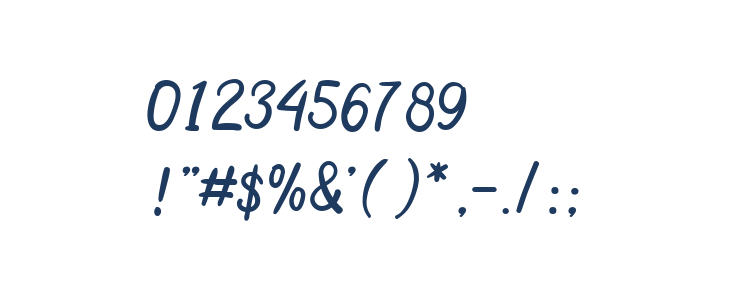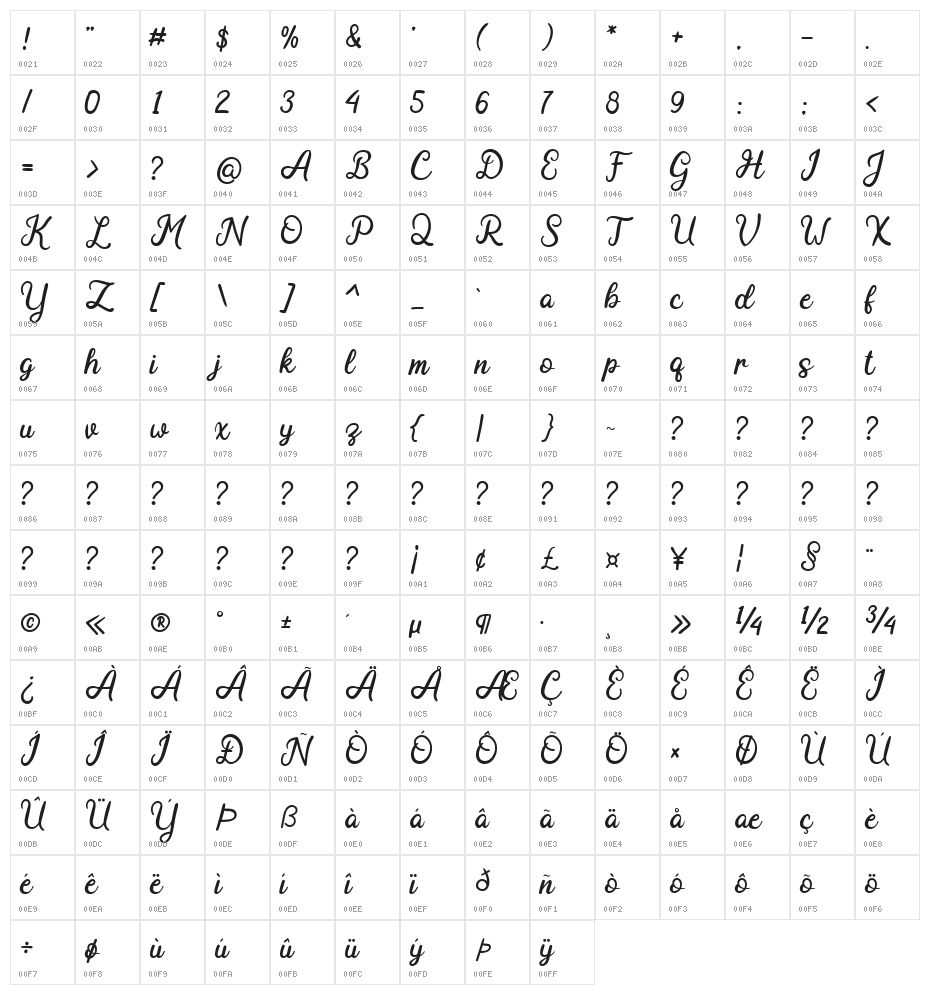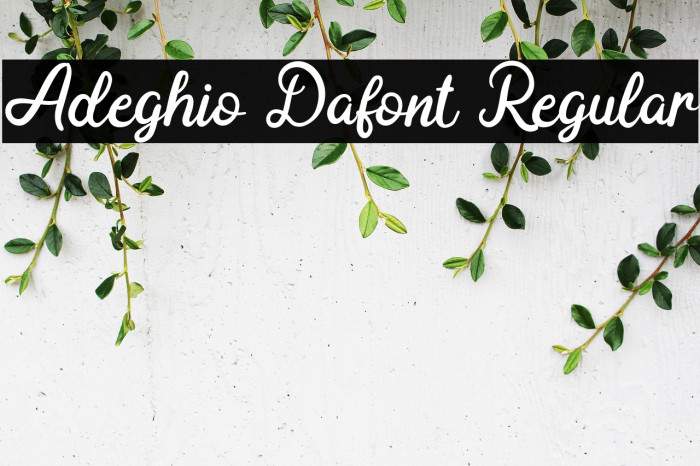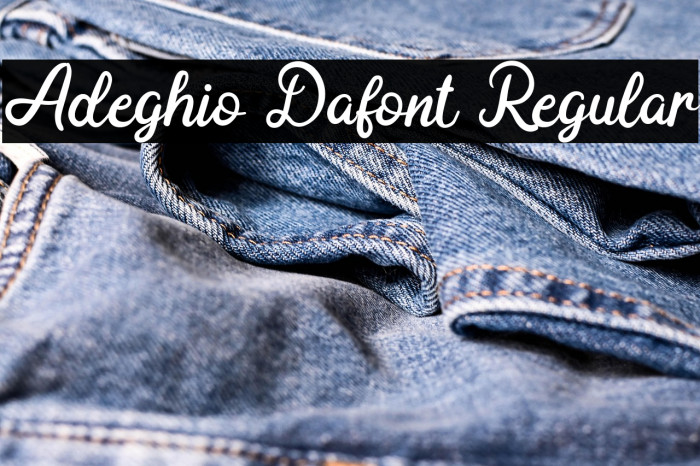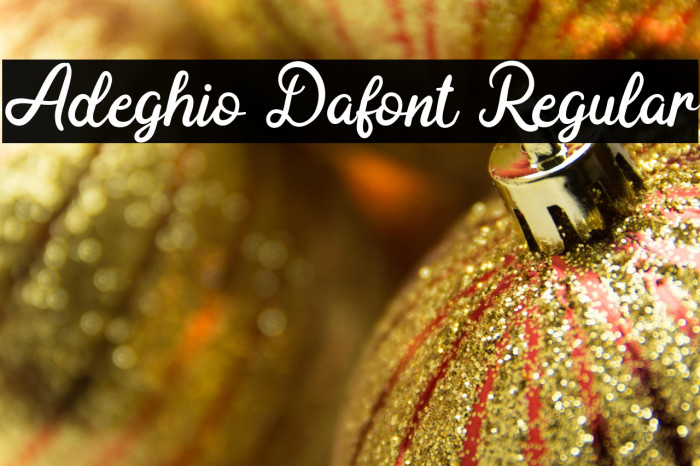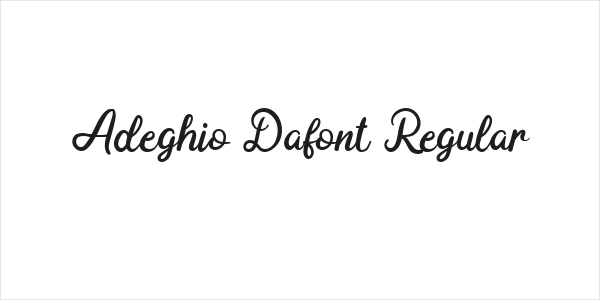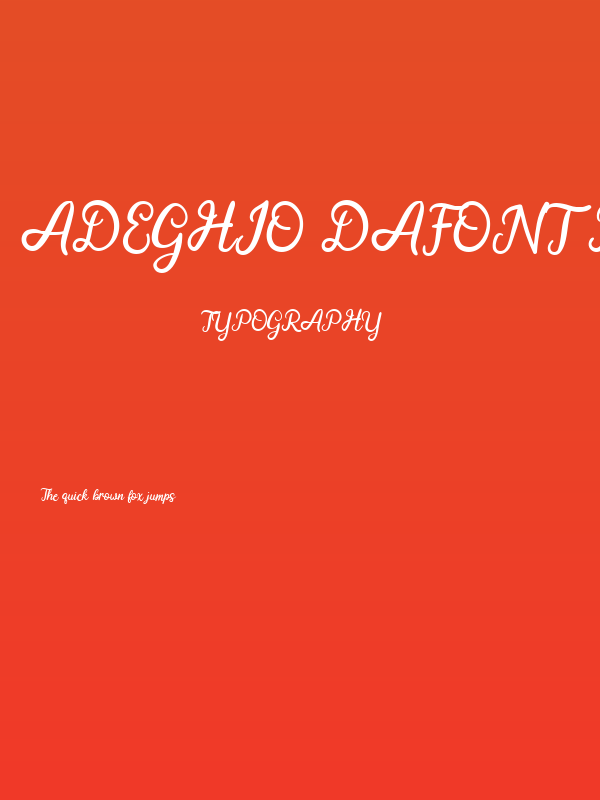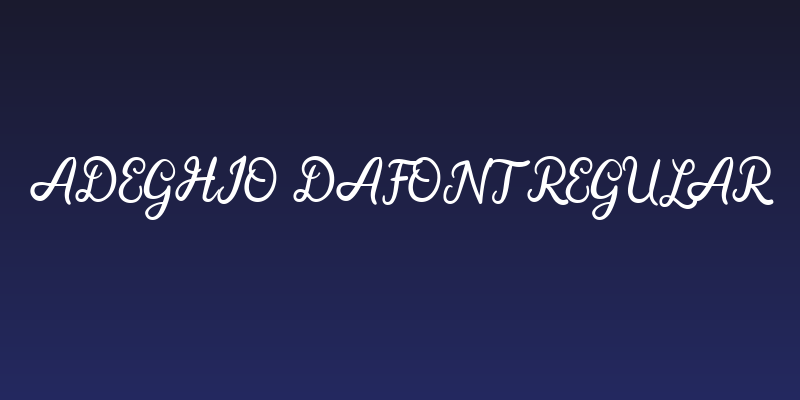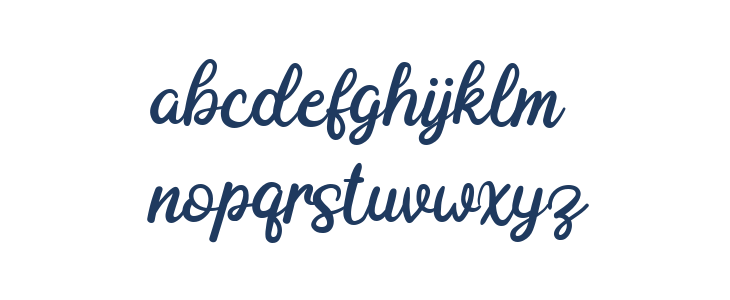
Adeghio Dafont Regular Font
Adeghio Dafont Regular Description
This font features a flowing, cursive style with smooth, rounded edges and a consistent stroke width. The uppercase letters are elegantly connected, creating a sense of movement and fluidity. The lowercase letters maintain a similar style, with some characters having distinctive loops and swirls that add to the overall charm. Numbers and special characters are designed to match the script's aesthetic, ensuring a cohesive look across all text. This font is ideal for projects that require a touch of elegance and sophistication, such as invitations, greeting cards, and branding materials.